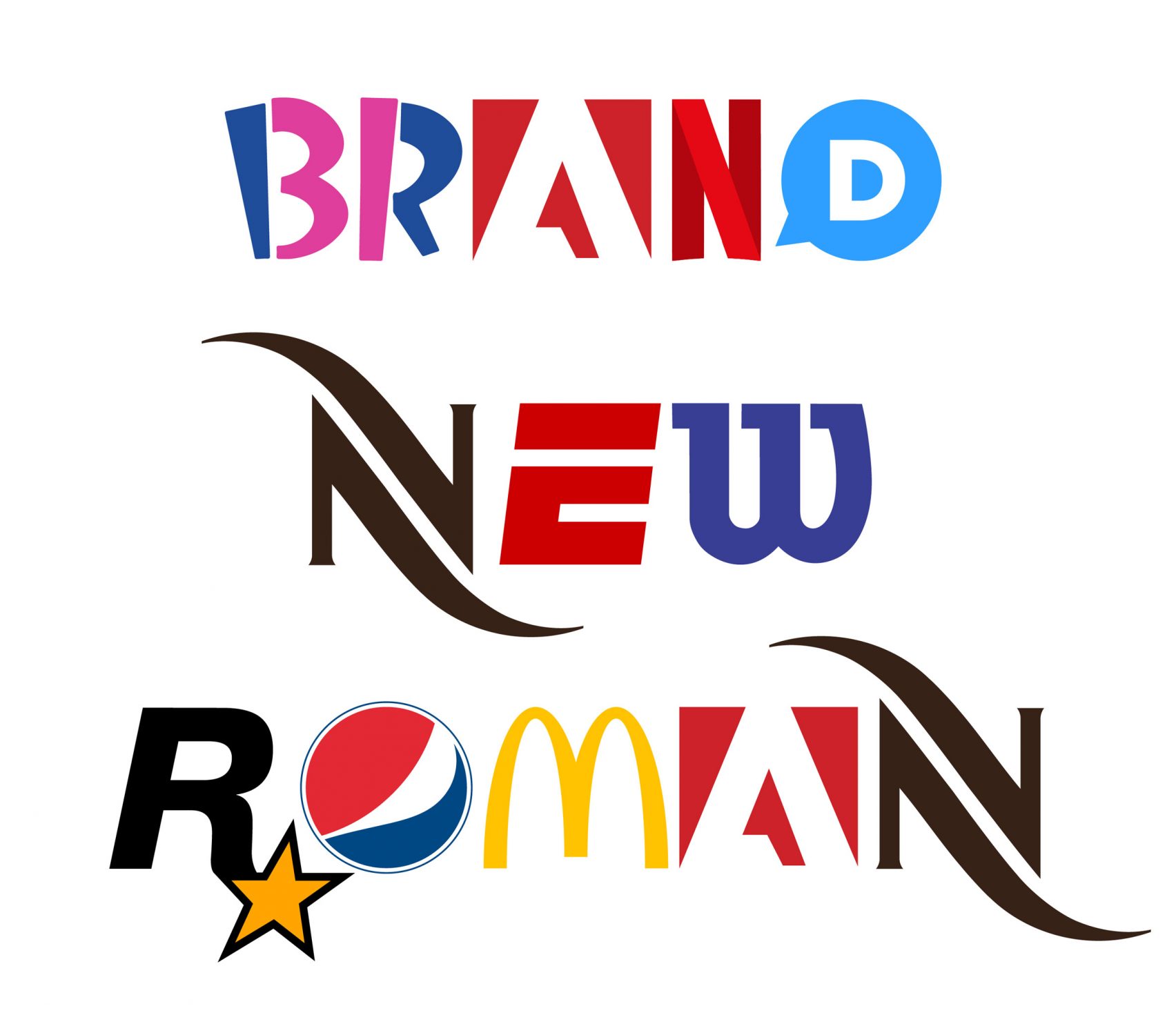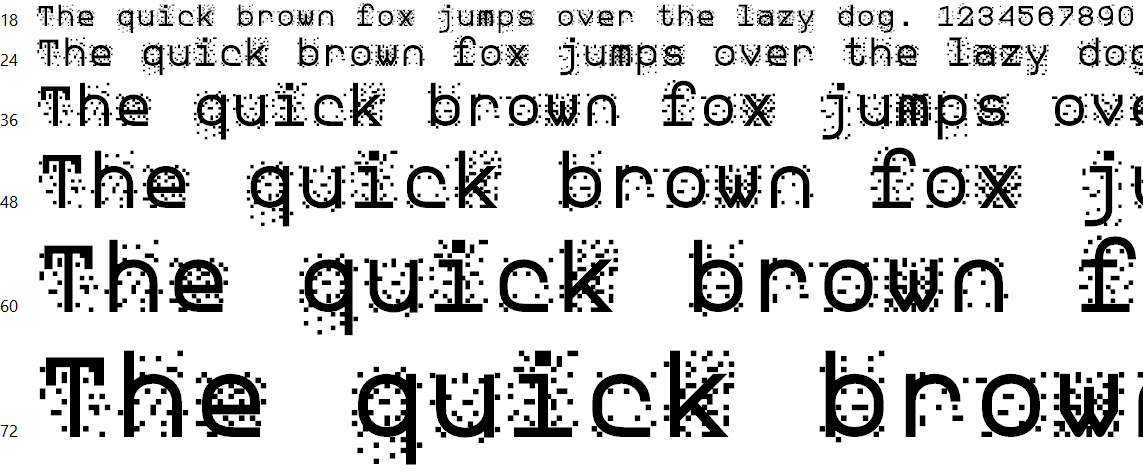
Because Font Matters
As a child, I was a big Apple fanboy and was praising the names of Steve’s (Jobs, Wozniak) on everything they have created. While the closest I ever got to an Apple computer was in schools, that didn’t stop me from subscribing to a year’s worth of MacUser magazine. Being in the cult of mac, you learn what inspired Steve Jobs to create technology that are not only functional but also beautiful. As they were influenced by typography and design, I became fascinated by how these art forms help made Apple computers to think different.
This is what also got me interested to be into desktop publishing and page design as a way to not only create content, but to arrange as much content into a page area without compromising on readability and visual layers. Naturally, to appreciate these new technologies, I went backwards to learn about the printing press, typography and the painstaking process of color separation.
But in midst of it all, Typography is special to me as I appreciate how every letter is a piece of art that shows intent and purpose while preventing miscommunication if poorly thought out. So with that, here are three fonts that have caught my eyes for being unique.
Brand New Roman
If every letter is a piece of art, and every brand is art, then this font package uses brand logos as a form of typography is art within art. While this is a neat idea, there is a chance of this font being removed due to copyright issues. While it appears to have no real applicable purpose or use, it exists for simply for the joys of brand recognition as a game. Brand New Roman pays homage to the graphic designers who built their client’s brand and awareness through their thoughtful art pieces.
Google Noto
While appearing the most boring of the lot, Noto is incredibly important as a font simply because it gives a consistent look no matter what language you are writing in. Now for those who are bi to multi-lingual, the switch to a different language and typography is incredibly jarring and in some cases, inadvertently shows how “unimportant” the other languages can appear to be. In some cases, the font difference could make reading near impossible due to font size and justification issues and at the very worst, the font don’t have the script and just looks like a series of boxes. Noto was designed to look consistent no matter what language you are writing making each translation equal in readability. Even if you can’t read a foreign language, you’ll appreciate the consistency when jumping around different languages encouraging copy pasta sessions with google translate.
ZXX
Being the most interesting of the three, zxx was made with the intent on confusing proofreading bots and optical character recognition (OCR) technology. While this makes it ideal in scrambling and protecting said content, the effectiveness depends on the user as these series of fonts can be highlighted and be changed back to something more readable. Clearly, this font isn’t a one stop solution in encrypting your content but as one of many tools working in tandem to deter these activities.
As languages and technology continue to evolve with time, the changes and adaption will also be reflected with the font we use to convey the message. Weather it is in a long and dry report whose font is designed for better readability or the most dynamic font in a bold visual ad, typography and the choice of font is choosing the right messenger. And that is just as important as writing the message.